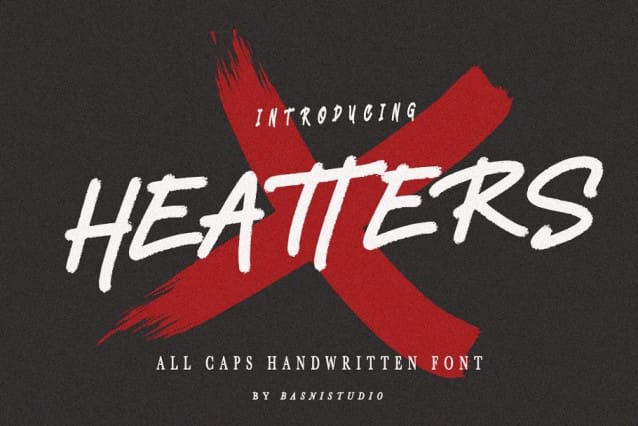
HeAtterS Font
Heatters Font – All Caps Handwritten Font, made with details and precision, perfect for branding, websites, and editorial designs. Includes all Capsletters, multilingual support, punctuation, binding. everything can be easily accessed using software that supports OpenType.